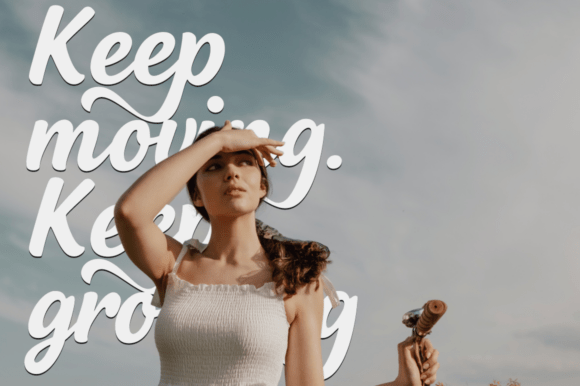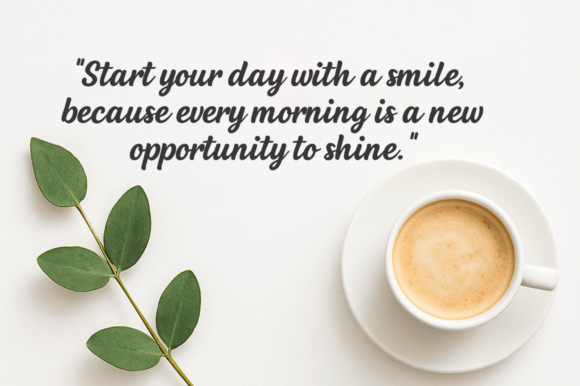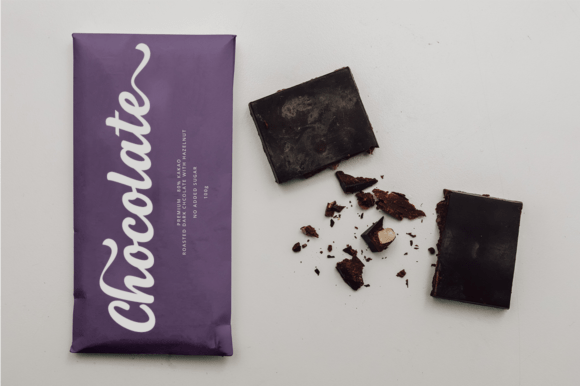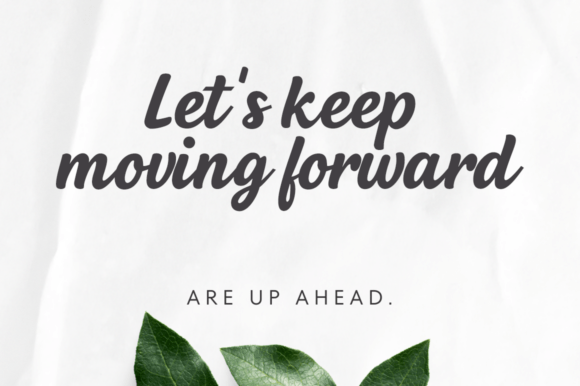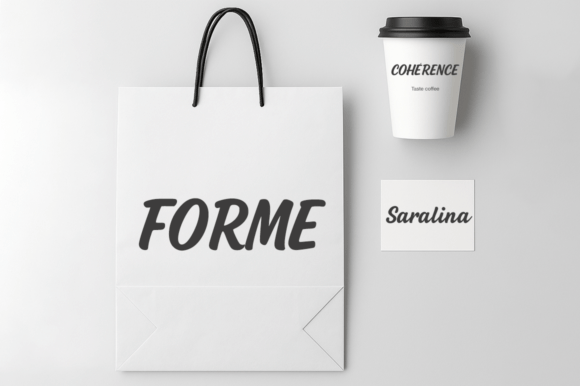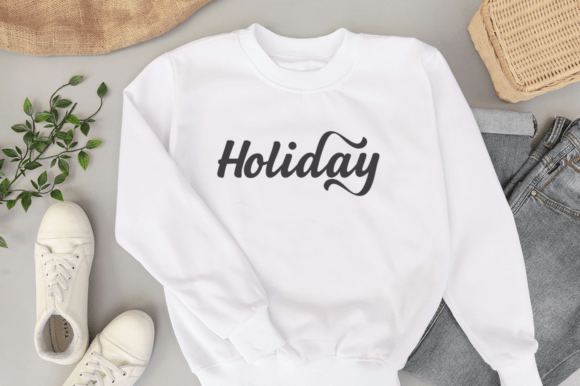
Introduction to Saturday Script Font
Have you ever stared at a blank page, eager to bring a creative project to life, but struggling to find the perfect font to convey your message? It’s that moment of frustration when you wish you had a secret weapon – a font that can elevate your design and leave a lasting impression. For designers, finding the right font can be a game-changer, and that’s where the Saturday Script Font comes in.
With its striking beauty and delicate curves, the Saturday Script Font is the perfect solution for those seeking a high-quality design resource that exudes sophistication and elegance. Whether you’re working on a logo, packaging, or headline, this font is sure to add an unrivalled charm to your designs. And the best part? It’s available for free download, making it an accessible resource for designers of all levels.
Imagine being able to breathe life into your designs with a font that effortlessly conveys personality and style. With the Saturday Script Font, you can do just that. Its smooth, flowing lines and transparent background make it a seamless fit for any creative project, allowing you to focus on what really matters – bringing your vision to life.
Key Features of Saturday Script Font
- Unique, handwritten style perfect for creative projects and designs
- Includes a wide range of characters, including uppercase and lowercase letters, numbers, and punctuation
- Perfect for use in a variety of design projects, from logos and branding to invitations and posters
Honest Review: Saturday Script Font
As a designer, I’m always on the lookout for high-quality fonts that can elevate my creative projects. The Saturday Script Font is a free download that caught my attention, and I’m excited to share my honest review.
What works well: ✨ This font is perfect for adding a touch of elegance to any project. Its beautiful script style makes it ideal for wedding invitations, branding, and other creative endeavors. The Saturday Script Font is also highly customizable, allowing you to adjust the size, color, and style to fit your needs.
What’s not so great: ⚠️ One of the limitations of this font is that it doesn’t come with a transparent background option. This can make it a bit tricky to use on projects with complex backgrounds. Additionally, the font may not be as versatile as some other script fonts on the market.
Overall impression: The Saturday Script Font is a solid addition to any designer’s toolkit. While it may have some limitations, its high quality and beautiful design make it a great resource for creative projects. Whether you’re looking to add a touch of sophistication or whimsy to your work, this font is definitely worth checking out.
- Perfect for adding elegance to creative projects
- Beautiful script style
Tips for Getting the Most Out of the Saturday Script Font
To get the most out of the Saturday Script Font, use it sparingly and in combination with other design elements. You can also experiment with different font sizes, colors, and opacities to create a unique and visually appealing design.
Common Use Cases for the Saturday Script Font
The Saturday Script Font is perfect for use in a variety of creative projects, including wedding invitations, birthday cards, and social media graphics. Its elegant script style and transparent background make it a great choice for any design that requires a touch of sophistication and elegance.